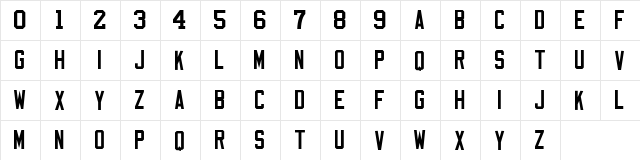
Varsity Block B Regular
Design Context for Varsity Block B Typeface
Varsity Block B has the bold swagger of sports branding: strong, assertive letterforms designed to dominate headlines and jerseys alike.
Built for sports team identities, athletic apparel, event posters, and high-energy promotional material.
Font Pairing: Use alongside a condensed or geometric sans for supporting copy — keep the pairing bold, functional, and free of ornament.
Pro Tip: Varsity Block B thrives on contrast — try it large, bold, and tight against a clean background for maximum visual impact.